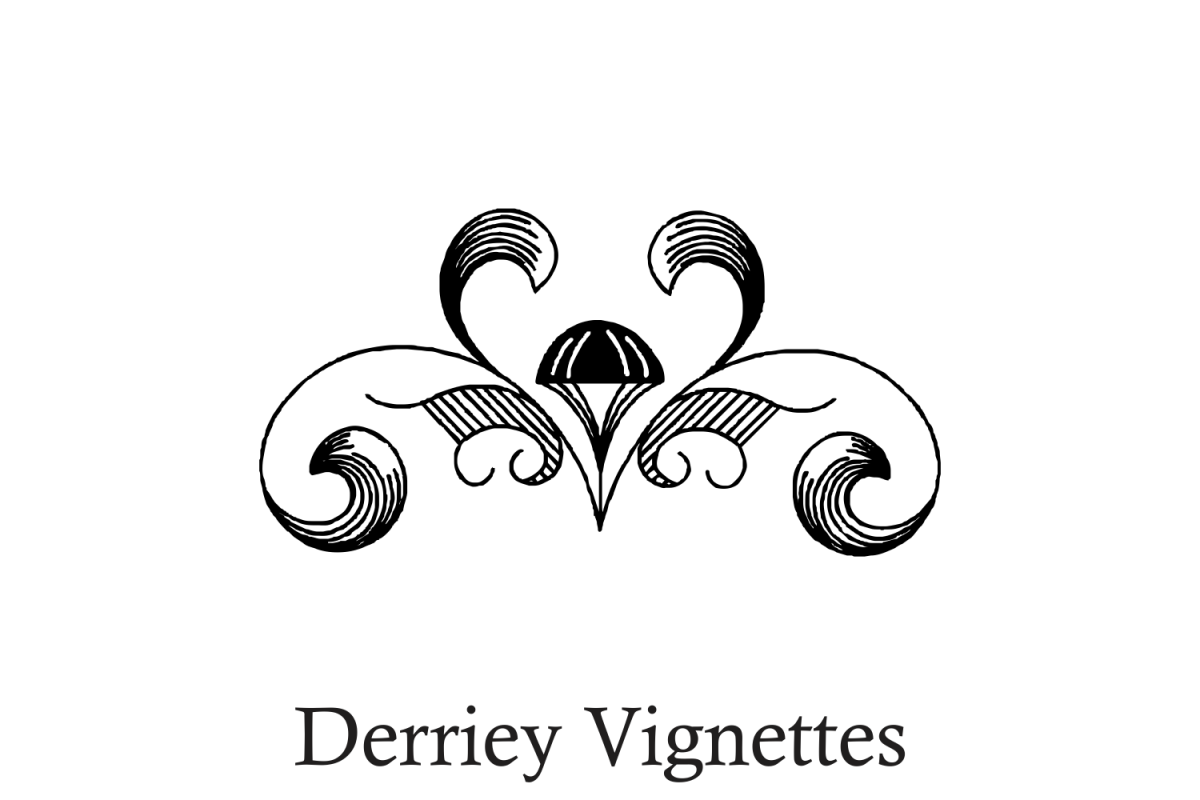
This is the first font by Intellecta's digitization of the fantastic heritage of Charles Derriey. Besides the original ornaments and fleurons, our collection has new interpretations and new designs based on the original work. A tour-de-force by Iza W.
Charles Derriey, (* 17. August 1808 in Moissey, Jura (Departement); deceased 11. February 1877 in Paris), was typefounder, punchcutter and printer in Paris. After his first years of learning the arts and crafts of typography at Besanaon, he created in 1839 his own print shop with a rotative printer and other equipment. His work, a typographic masterpiece, can be found in "Gravure et fonderie de C. Derriey : specimen-album (Paris : Rue Notre-Dame-des-Champs, 6&12, 1862). It is famous for his beautiful ornaments. The foundry was sold to Turlot on October 1, 1880.